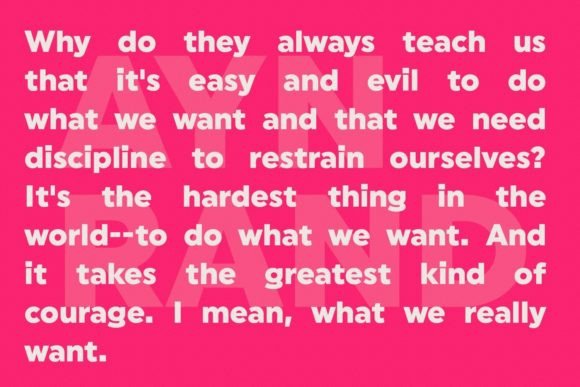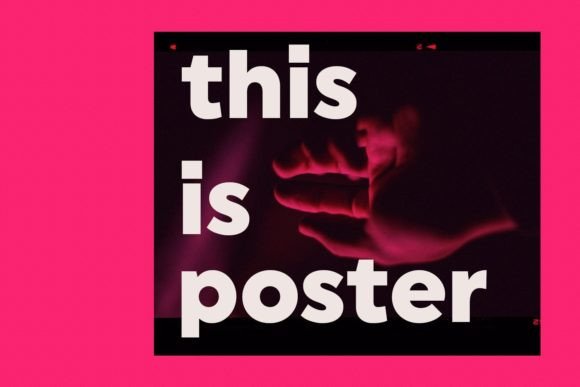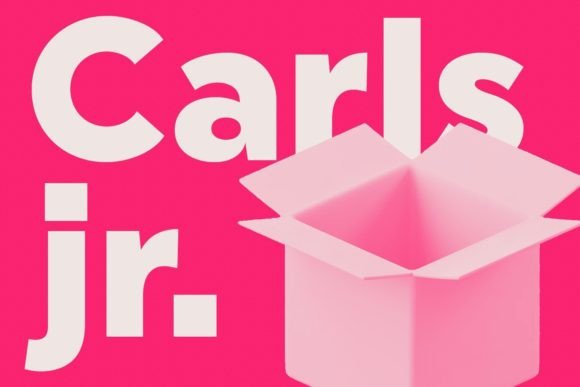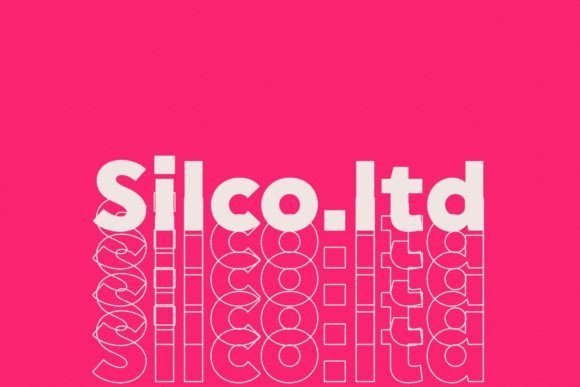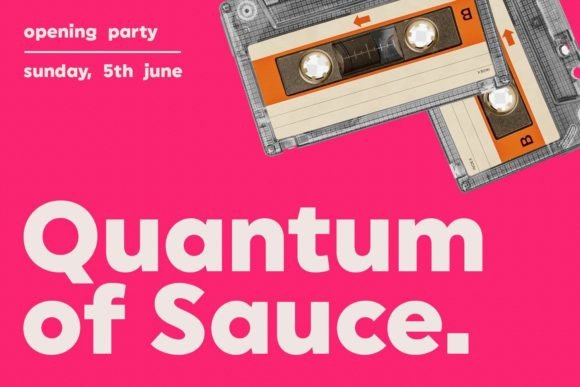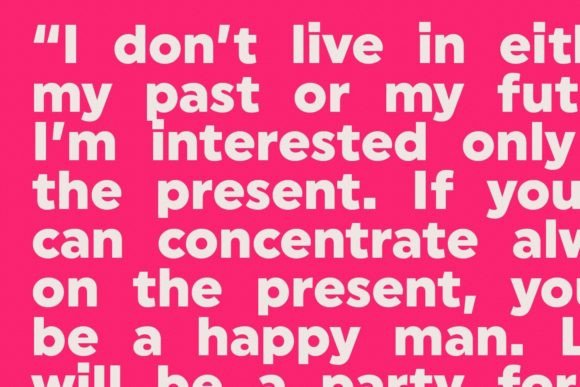
Introduction to Hoglar Font
Have you ever been working on a creative project, pouring your heart and soul into it, only to realize that the font just isn’t cutting it? You know, that moment when you’re stuck between a beautiful idea and a lackluster design? I’m sure many designers have been there, and that’s exactly why discovering the Hoglar Font can be a game-changer.
As a versatile and modern sans serif font, Hoglar Font is the perfect addition to any project. Its clean lines and high-quality design make it an ideal choice for designers who want to create stunning visuals without compromising on style. Whether you’re working on a website with a transparent background or a brochure that needs a bold touch, Hoglar Font is sure to elevate your design to the next level.
Key Features of Hoglar Font
Honest Review: Hoglar Font
I recently had the opportunity to work with the Hoglar Font, and I must say it’s been a delightful experience. As a designer, I’m always on the lookout for high-quality design resources that can elevate my creative projects.
- ✨ The Hoglar Font has a beautiful, elegant design that’s perfect for titles and headings.
- ✨ The font is highly customizable, allowing me to adjust the size, color, and style to suit my project’s needs.
- ⚠️ The Hoglar Font may not be suitable for small text sizes, as it can become difficult to read.
- ⚠️ The font doesn’t come in as many weights as some other popular fonts, which can limit its versatility.
Overall, I’m impressed with the Hoglar Font. It’s a solid addition to any designer’s toolkit, and the free download makes it an excellent value. If you’re looking for a high-quality font for your next creative project, I’d definitely recommend giving it a try.
Tips for Getting the Most Out of Hoglar Font
When using the Hoglar Font, be sure to pair it with complementary fonts and colors to create visually appealing designs. You can also experiment with different font sizes and styles to add depth and interest to your designs.
The Hoglar Font is ideal for use in creative projects, such as logos, business cards, and marketing materials. It’s also great for use in presentations and documents where a high-quality, transparent font is needed.